Cool Brain Fonts Ideas
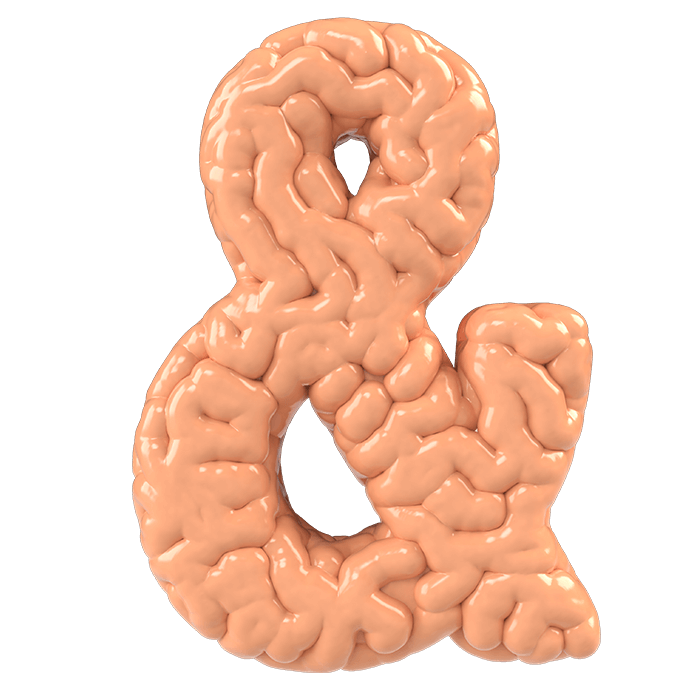
Used to indicate thinking or the human mind. The brain flower font has been downloaded 49,185 times. The brain is the perfect font for all your fun designs.
The font subfamily is regular. The fonts in use section features posts about fonts used in logos, films, tv shows, video games, books and more; A human brain, shown in pink on most platforms.